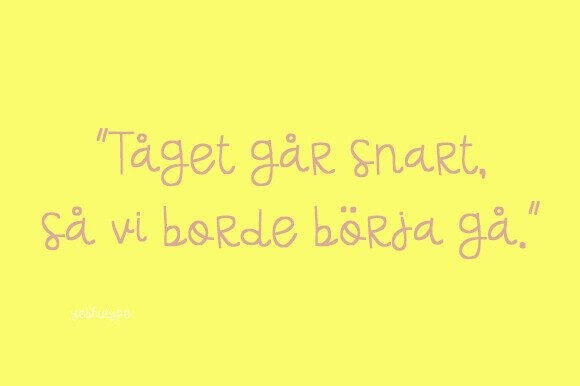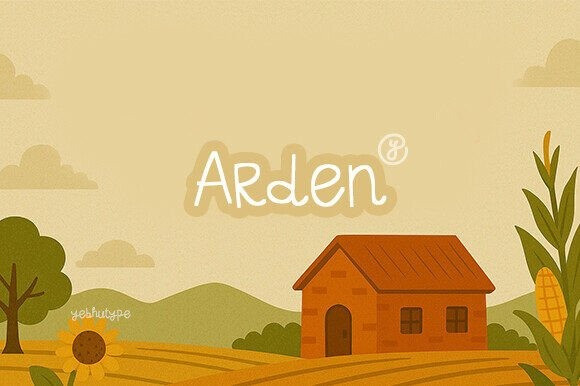
Arden Typeface
Arden Typeface, a spirited handwritten typeface that blends whimsy, warmth, and casual elegance into every curve. With its quirky rhythm and soft, looping forms, Arden captures the joy of expressive writing and the human touch of spontaneous creativity.